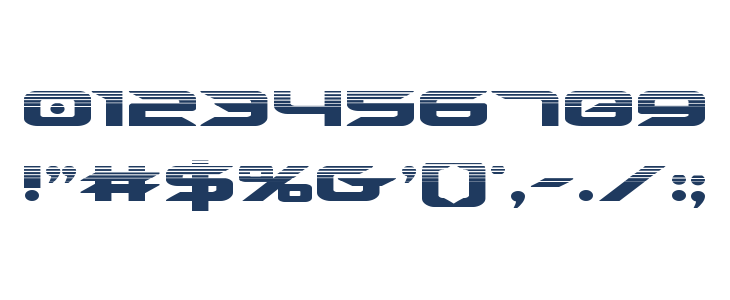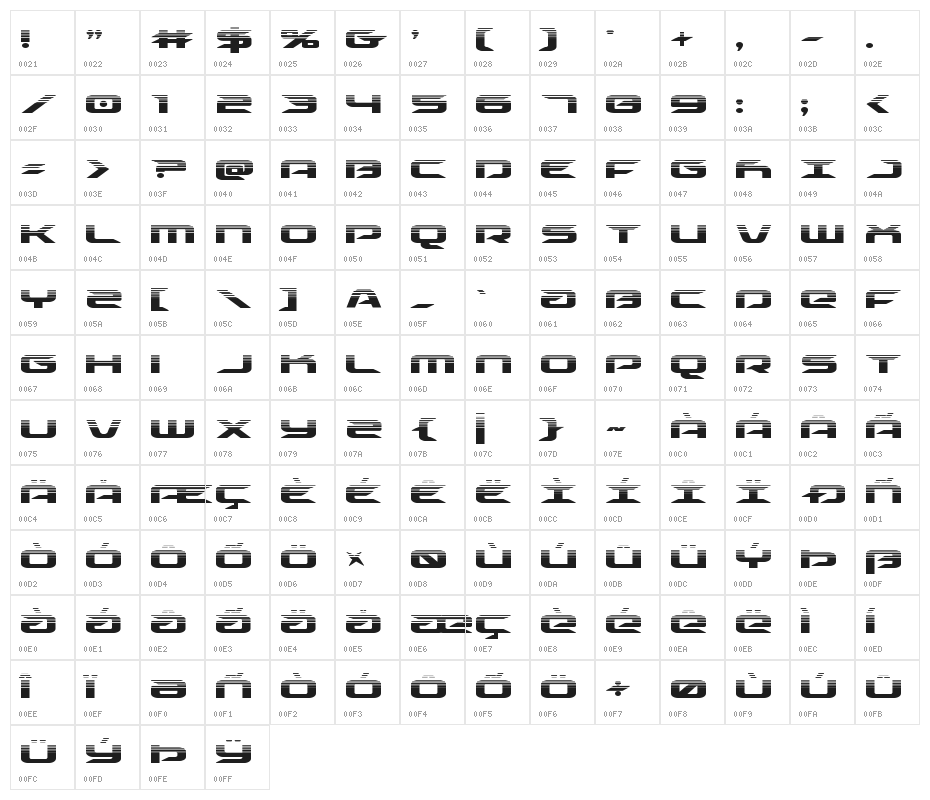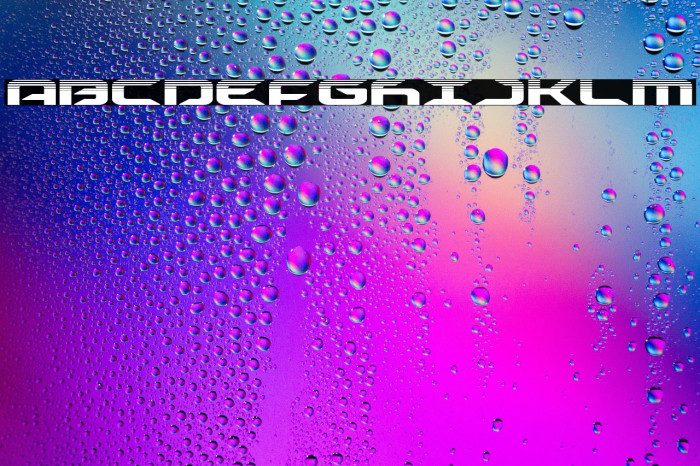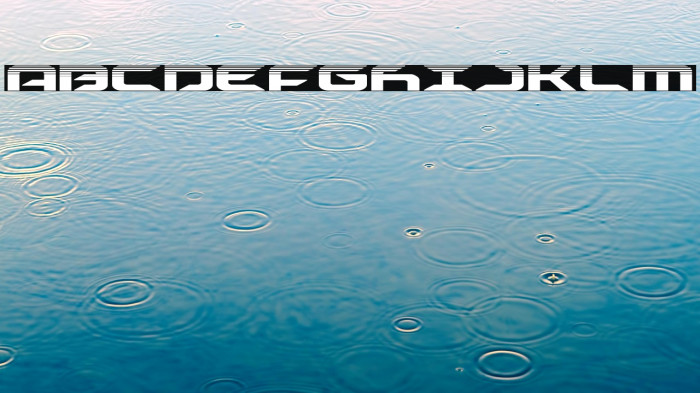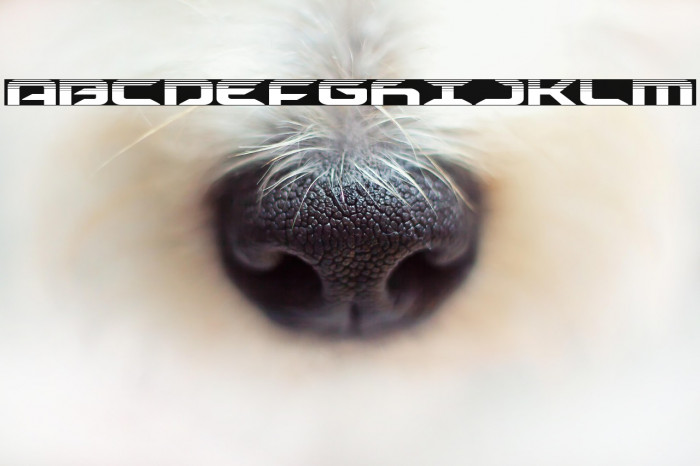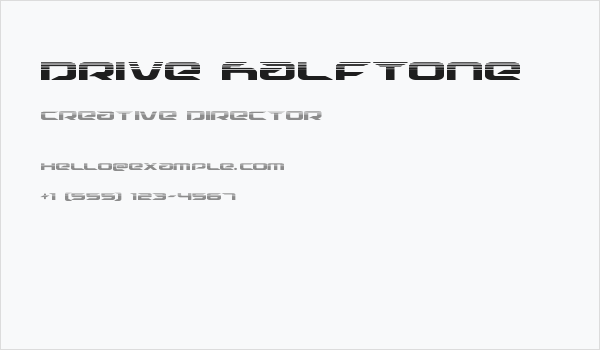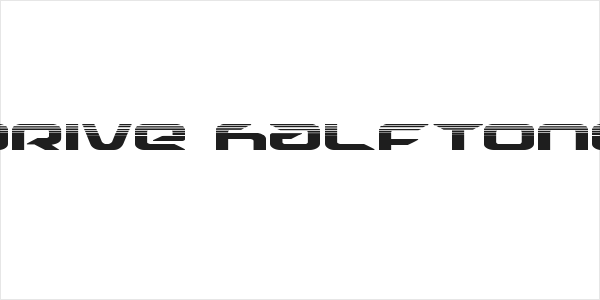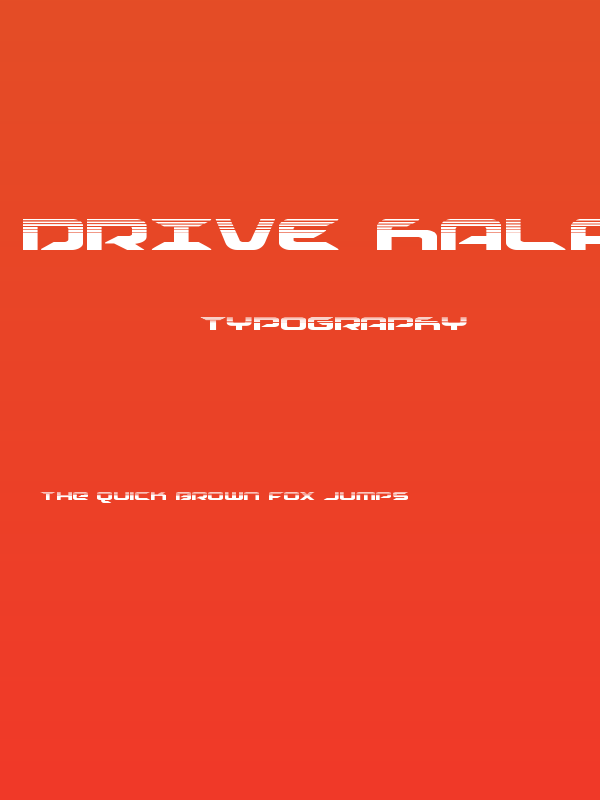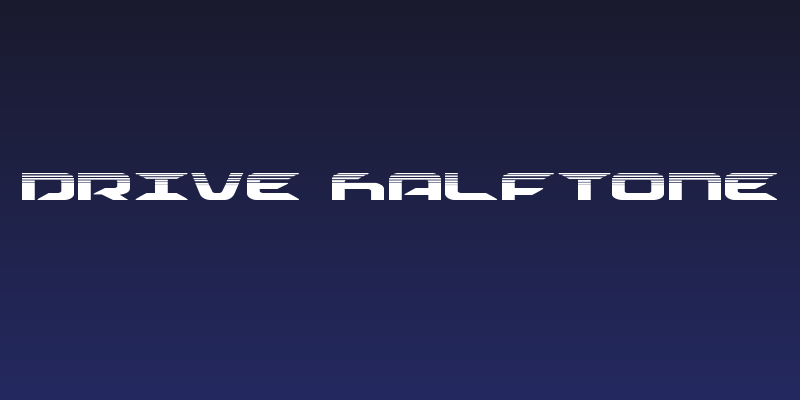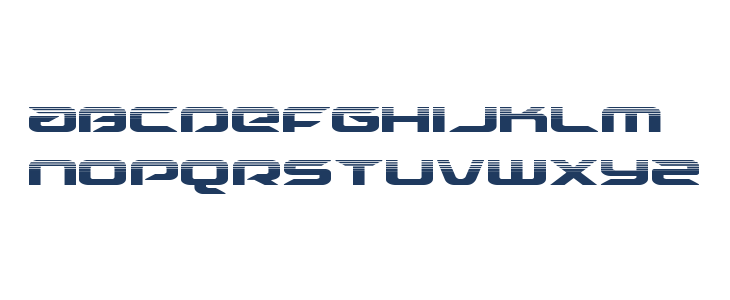
Drive Halftone Font
Drive Halftone Description
This font features a futuristic and dynamic design, characterized by its bold and angular letterforms. The unique halftone effect within each character gives it a sense of movement and energy, making it stand out in any design. The uppercase and lowercase letters maintain a consistent style, with sharp edges and a geometric structure. Numbers and special characters are equally stylized, ensuring a cohesive look across all text elements. The font's distinct appearance is ideal for projects that require a modern and edgy aesthetic.
| Proposed Projects | Ideal for sci-fi movie posters, video game titles, tech branding, and futuristic event flyers. |